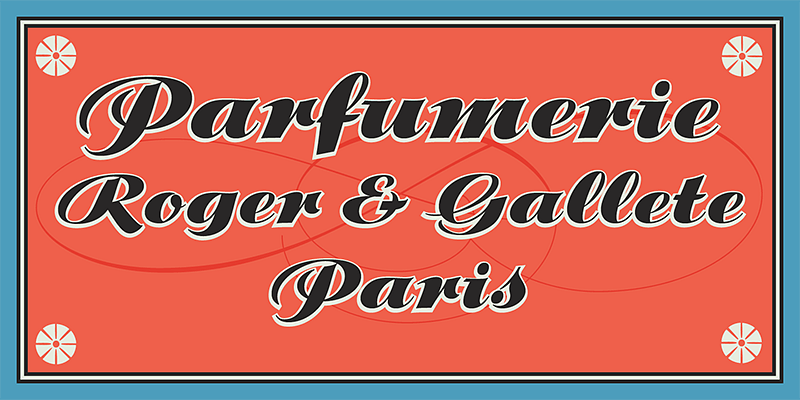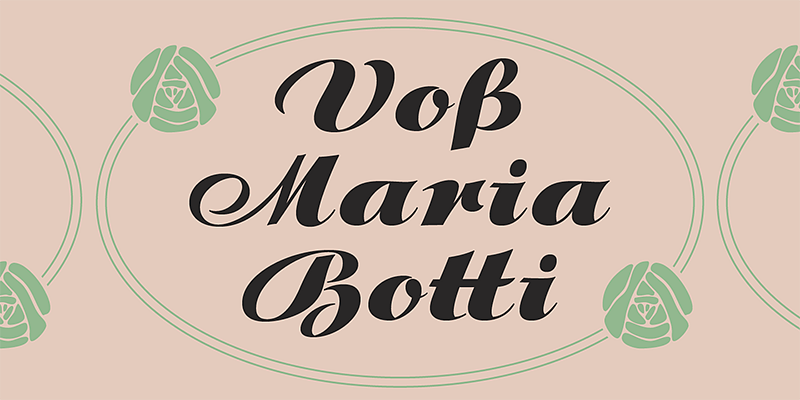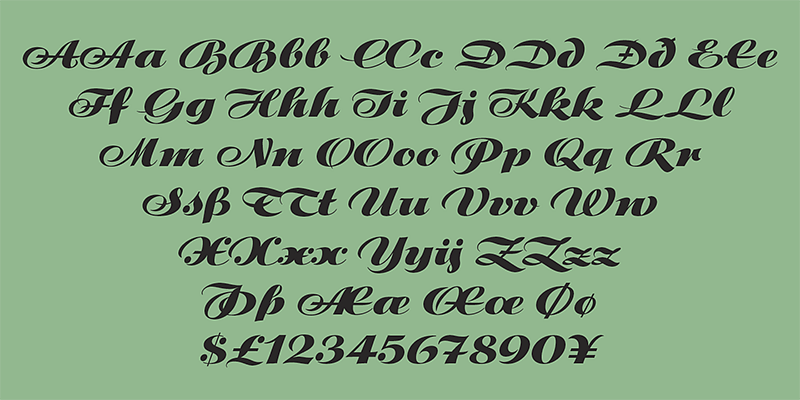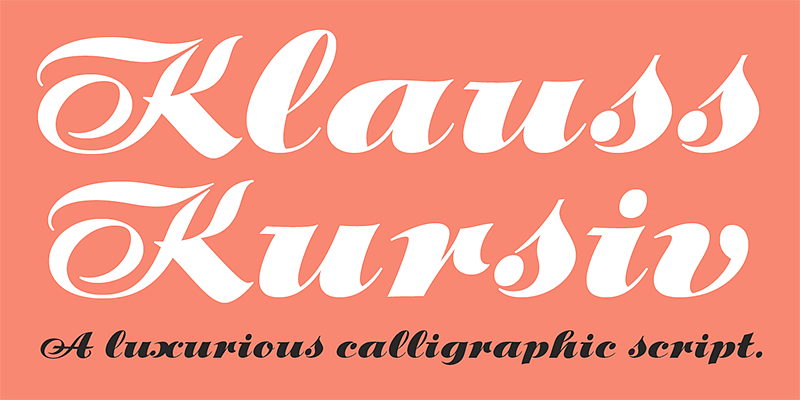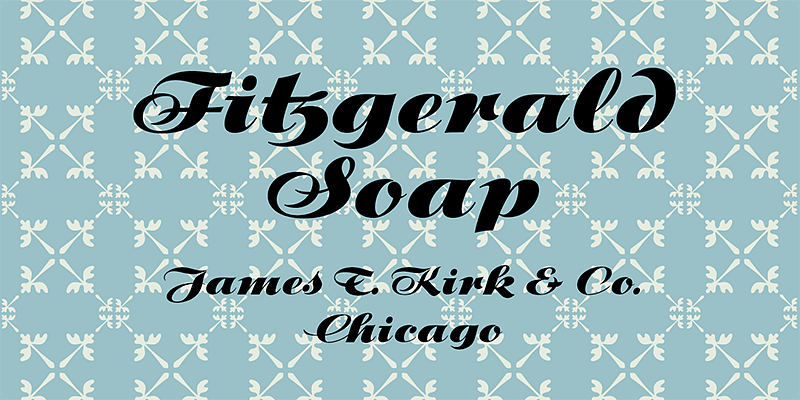
P22 Klauss Kursiv is the first ever digital revival and expansion of the last face Karl Klauß designed for the Genzsch & Heyse foundry in Stuttgart before he died in 1956.